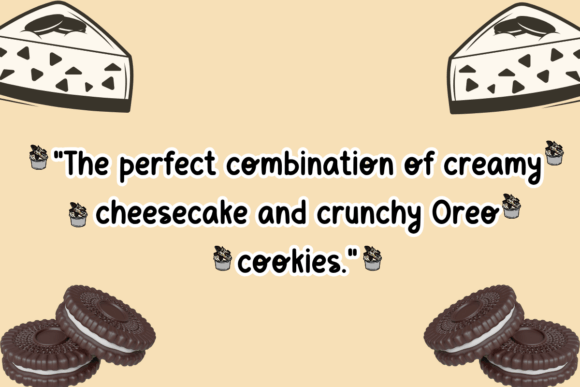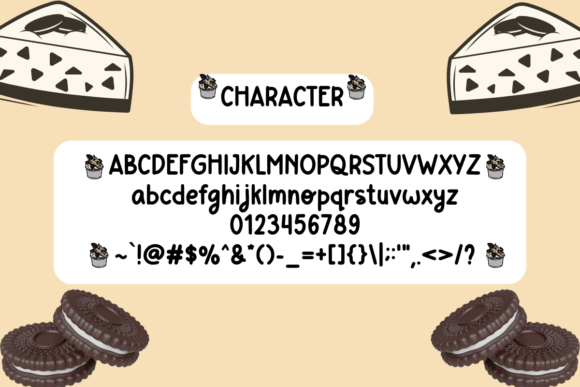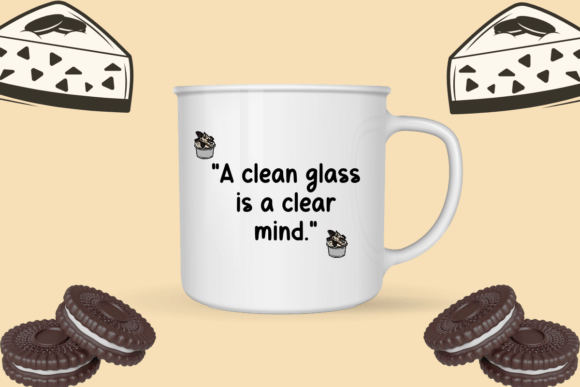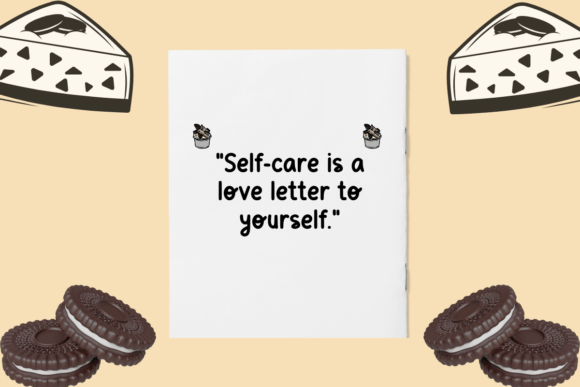
Introduction to Oreo Cheesecake Font
Oreo Cheesecake is a fun sans-serif font.
| 👤 Author | CraftedType Studio |
Suitable for memos, journals, notes, planners, interior KDPs, cards, invitations, scrapbooks and many other creative ideas Apart from that, it is also suitable for cardinals, Christmas, Halloween, Buddhist, Thanksgiving, funky, fall, laser, mini calendars, laser cut, tumbler wrap, seamless patterns, basketball, zodiac, mockups, t-shirts, quotes, tarot.
Key Features of Oreo Cheesecake Font
Why Choose Oreo Cheesecake Font?